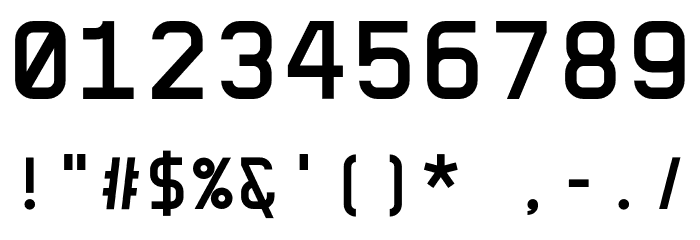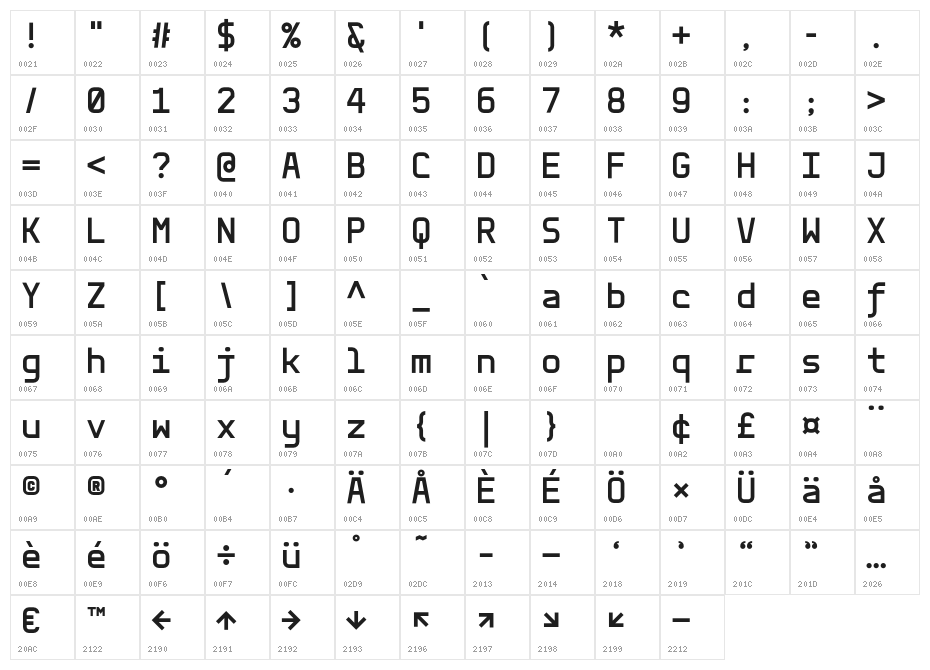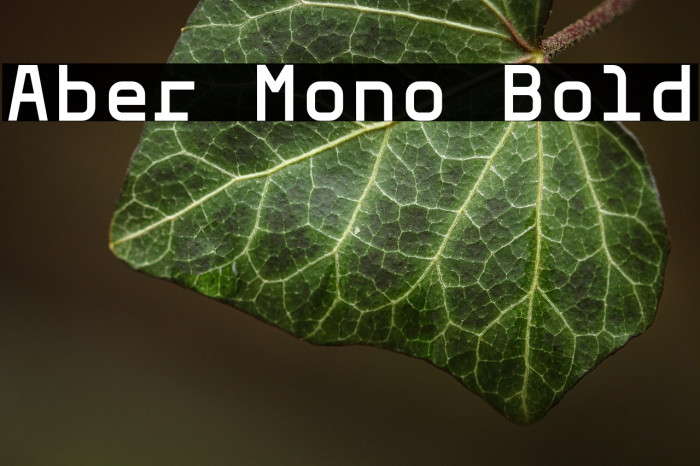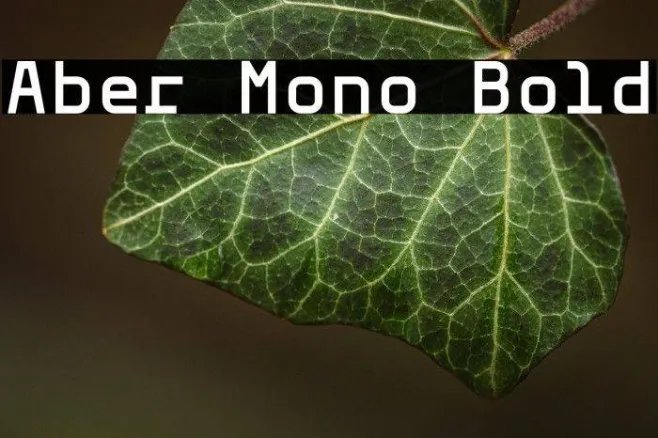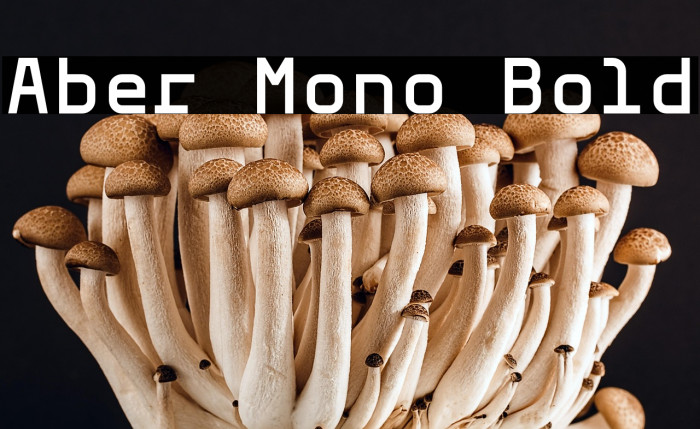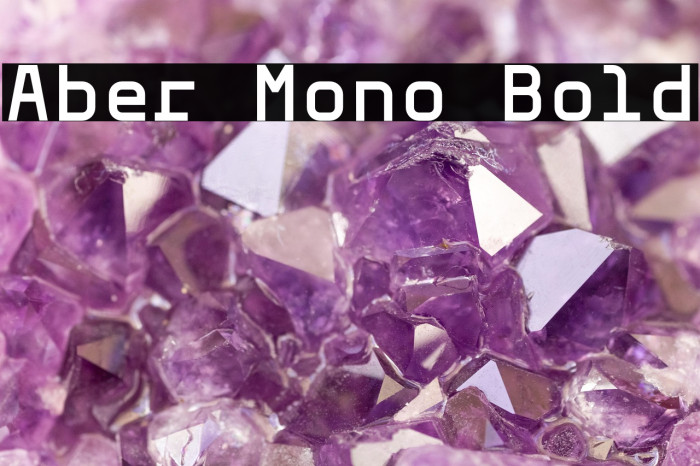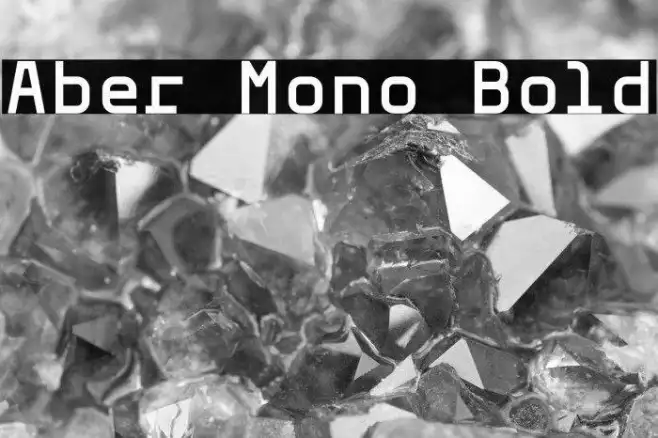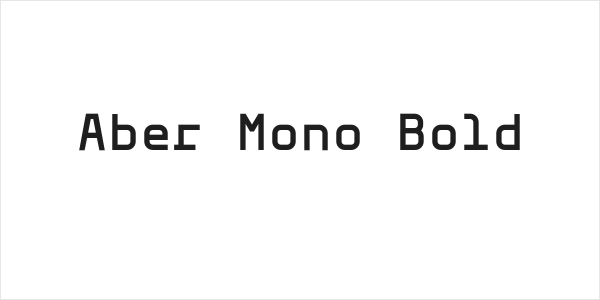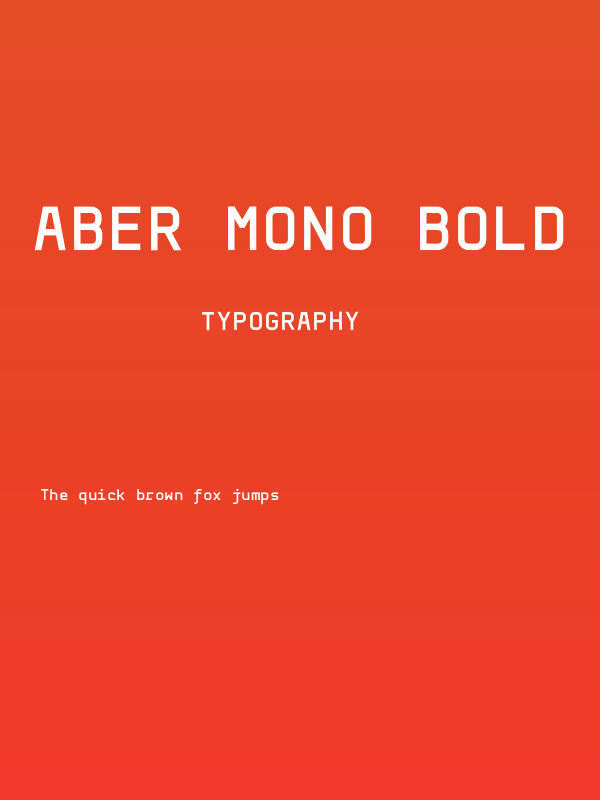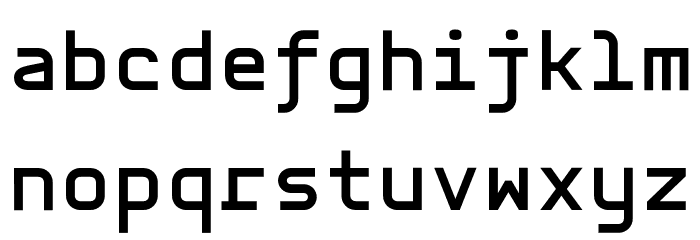
Aber Mono Bold Font
Aber Mono Bold Description
This font is a monospaced typeface characterized by its uniform width across all characters, providing a clean and organized appearance. The bold weight enhances its readability and impact, making it suitable for both digital and print media. The design features straight lines and right angles, giving it a modern and technical feel. The uppercase letters are tall and commanding, while the lowercase letters maintain a consistent height, ensuring a balanced look. The numerals are clear and distinct, ideal for data presentation. Special characters are well-defined, supporting a wide range of uses.
| Use Case | Headlines, Coding, Technical documents |
| Proposed Projects | Ideal for coding environments, technical documentation, and data-heavy presentations. |